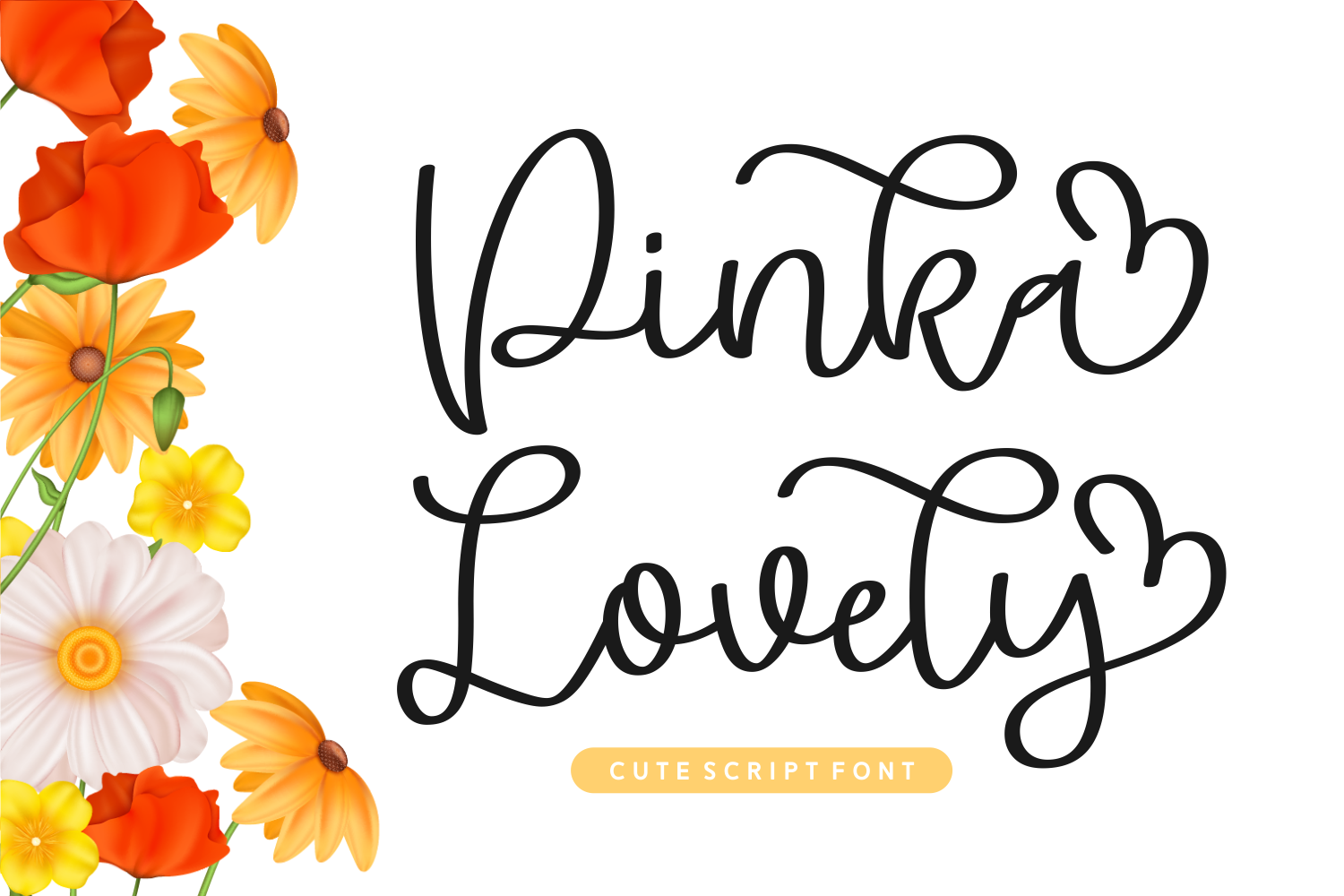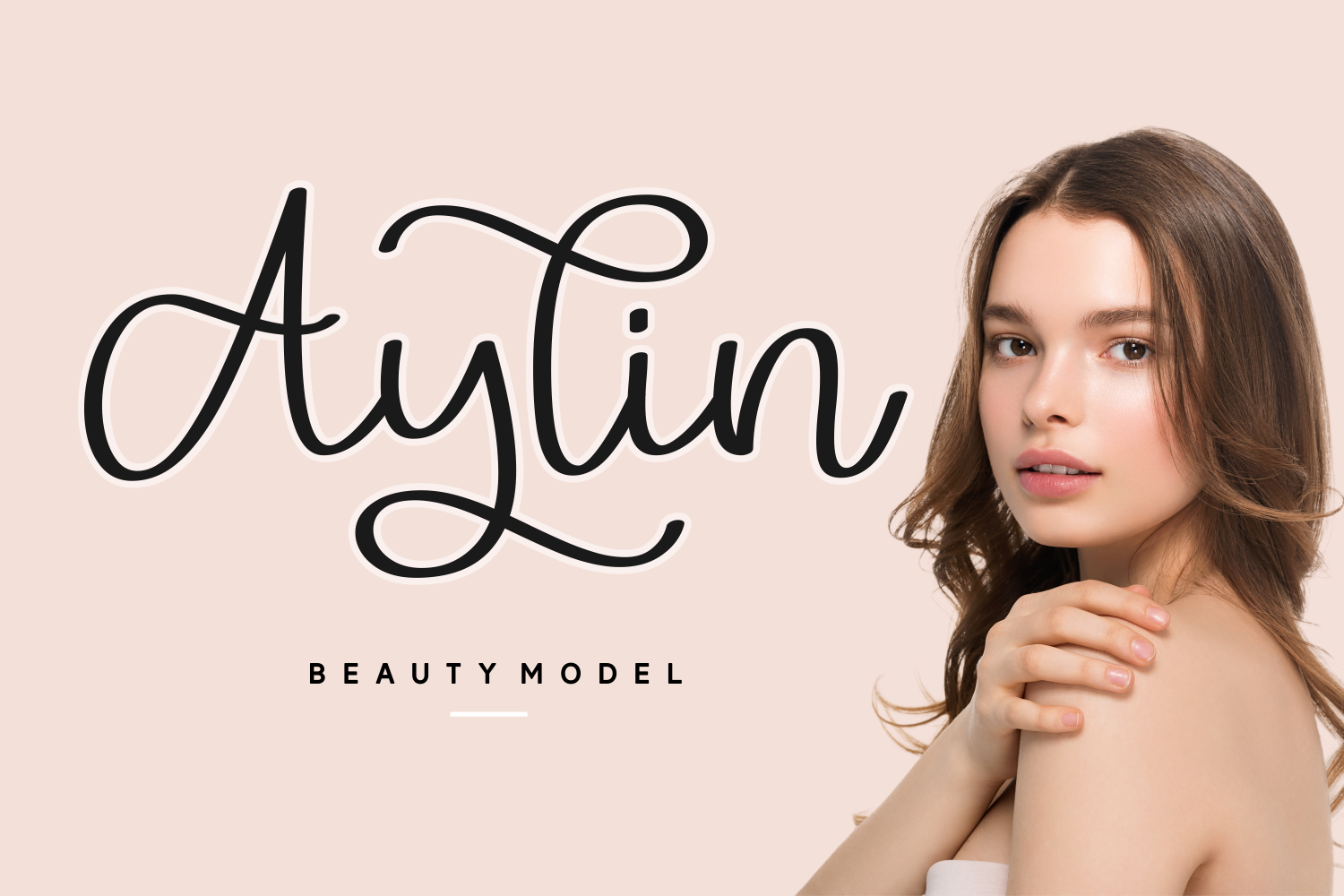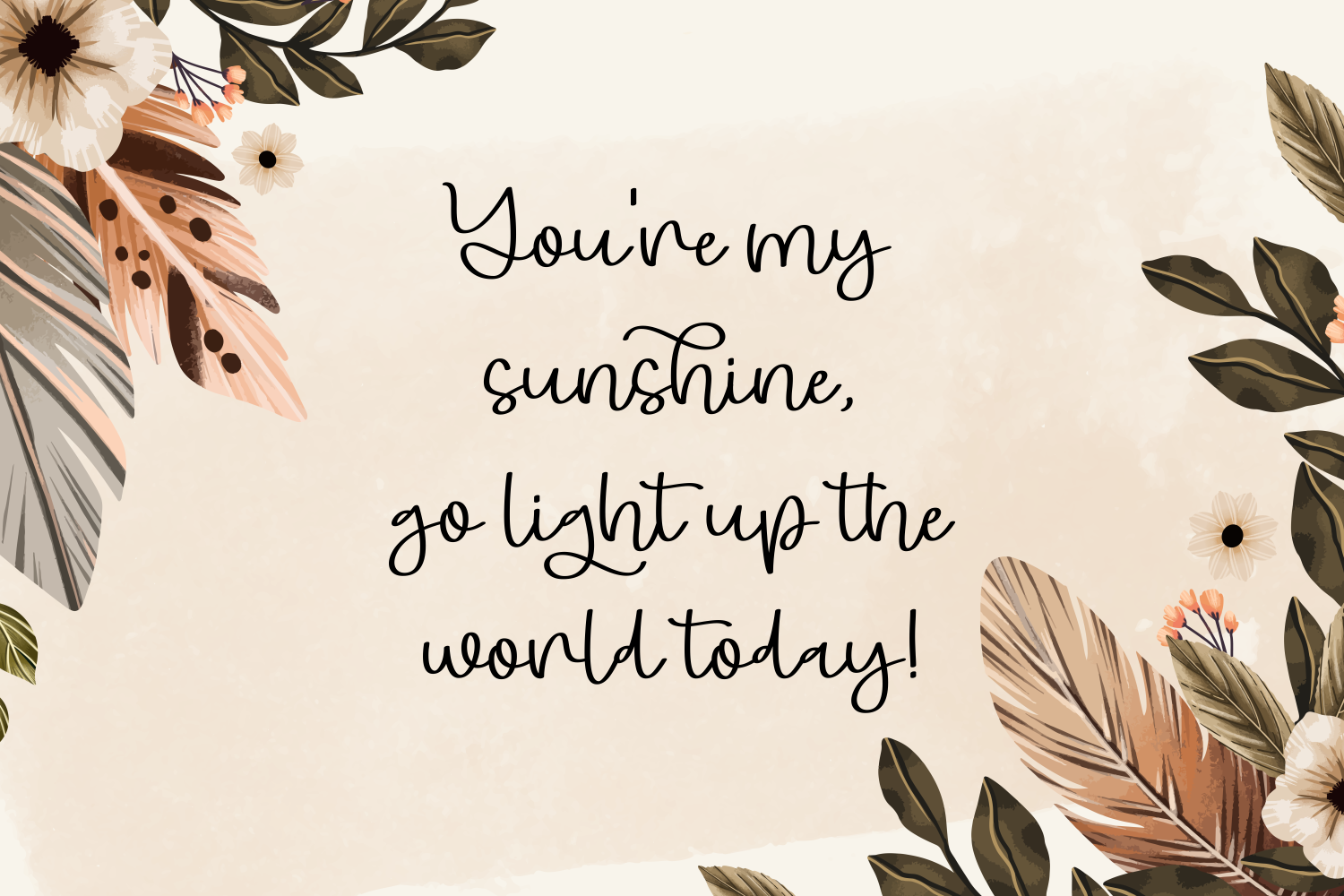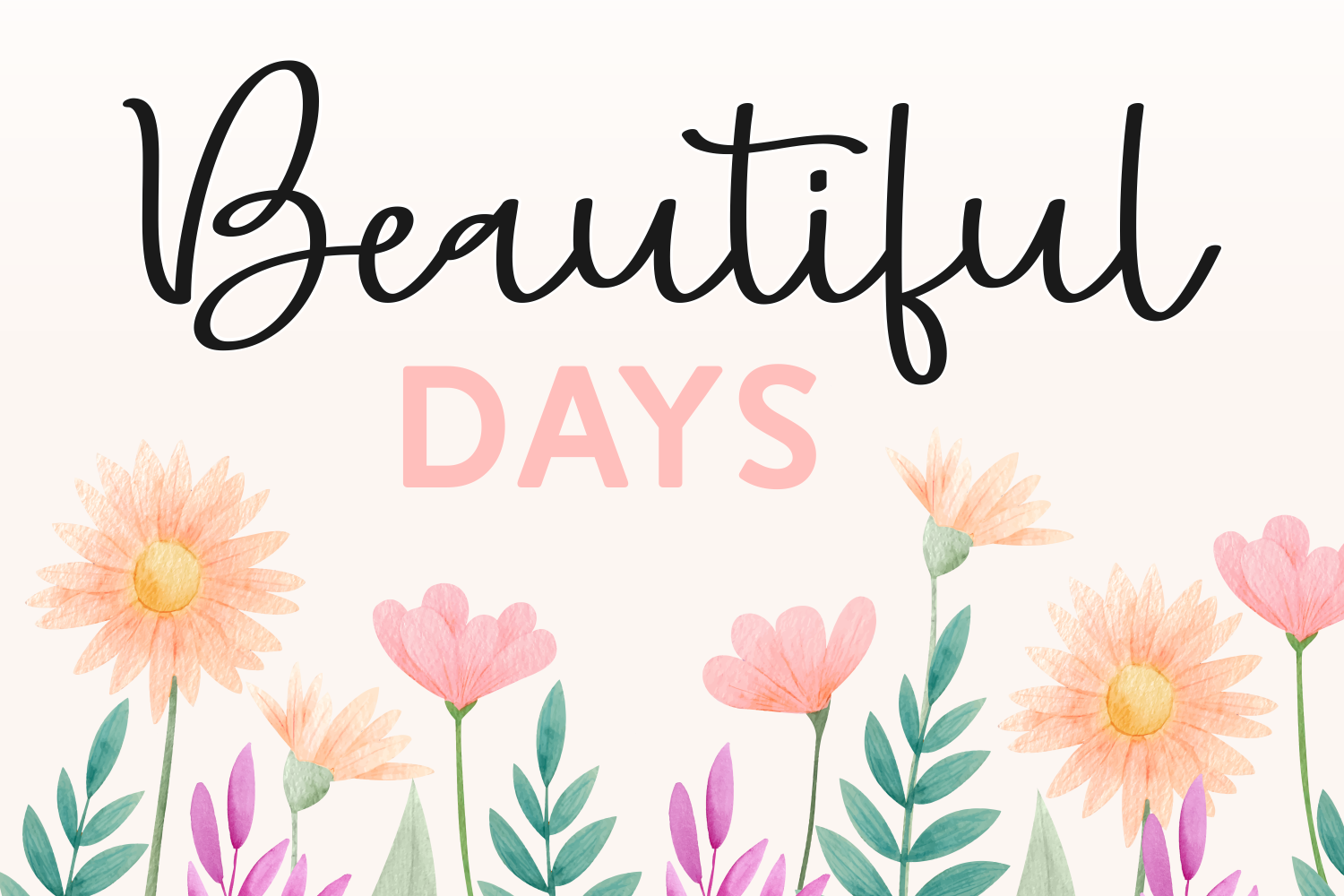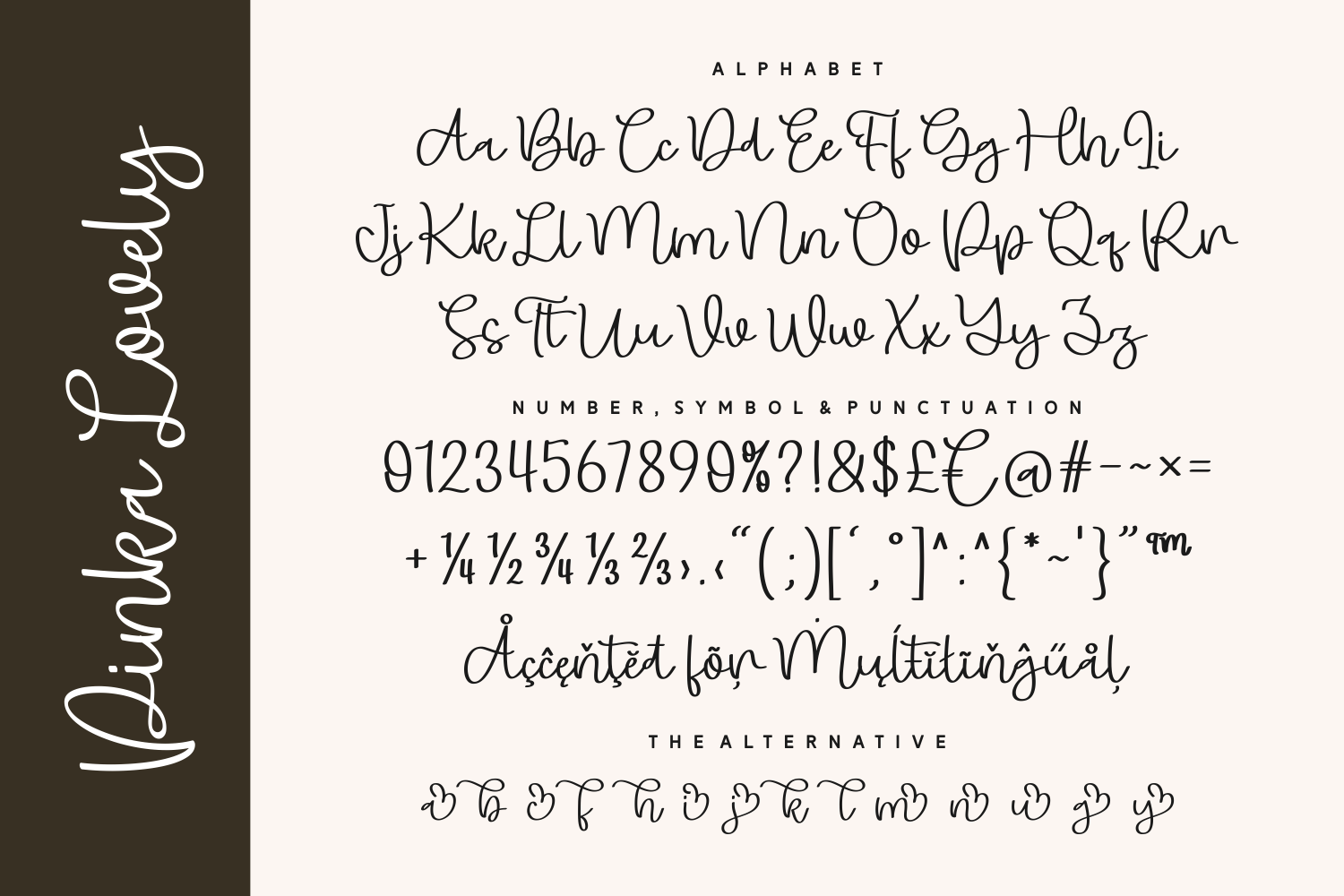
Pinka Lovely is a charming and sweet script font that radiates warmth, innocence, and joy.
It offers full character support, multilingual accents, and stylish alternates that allow you to mix and match for the perfect personal touch. Pinka Lovely turns any message into a heartfelt expression with a beautifully natural flow that feels handwritten yet polished.